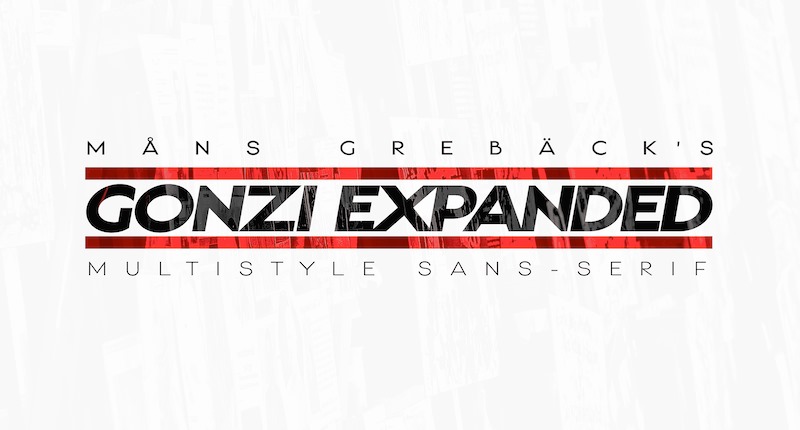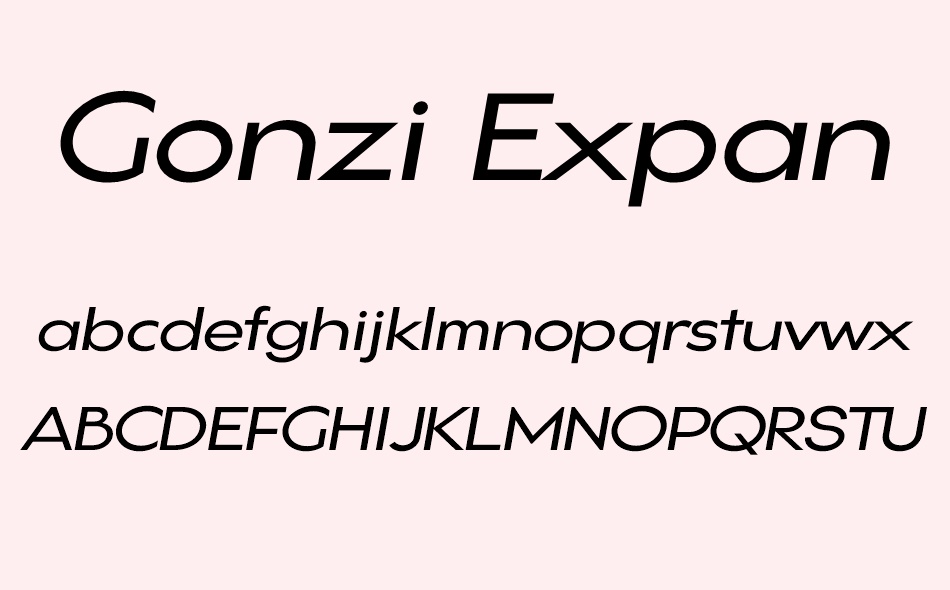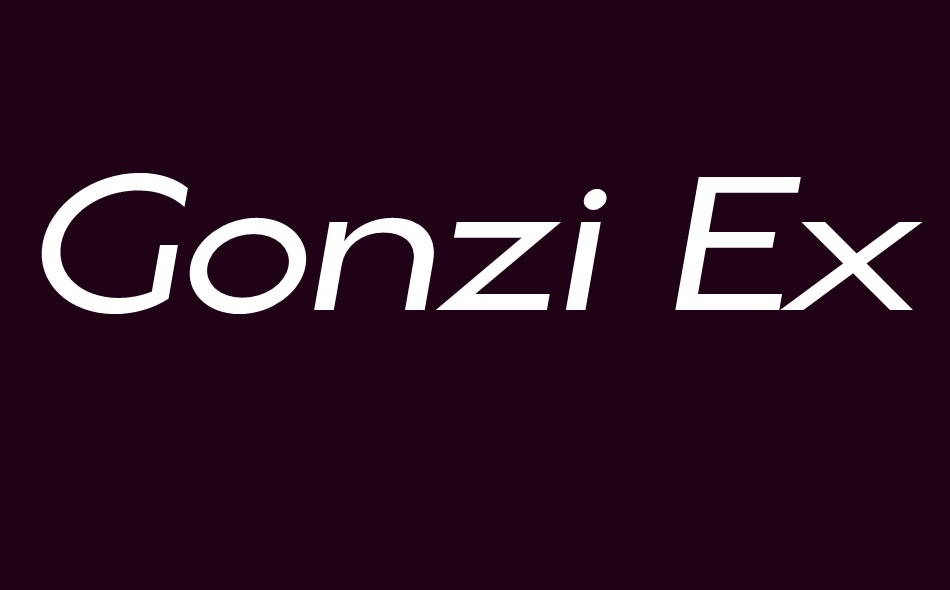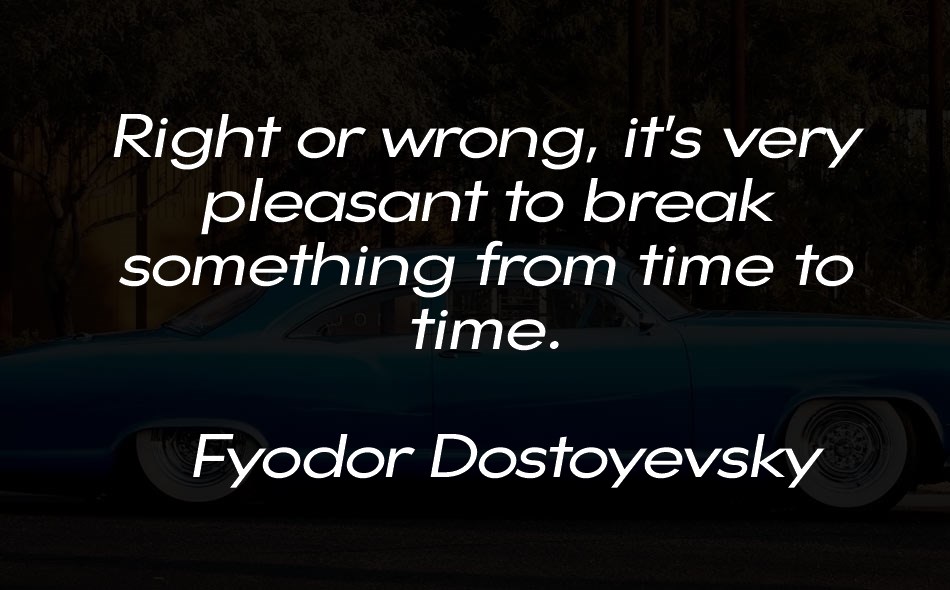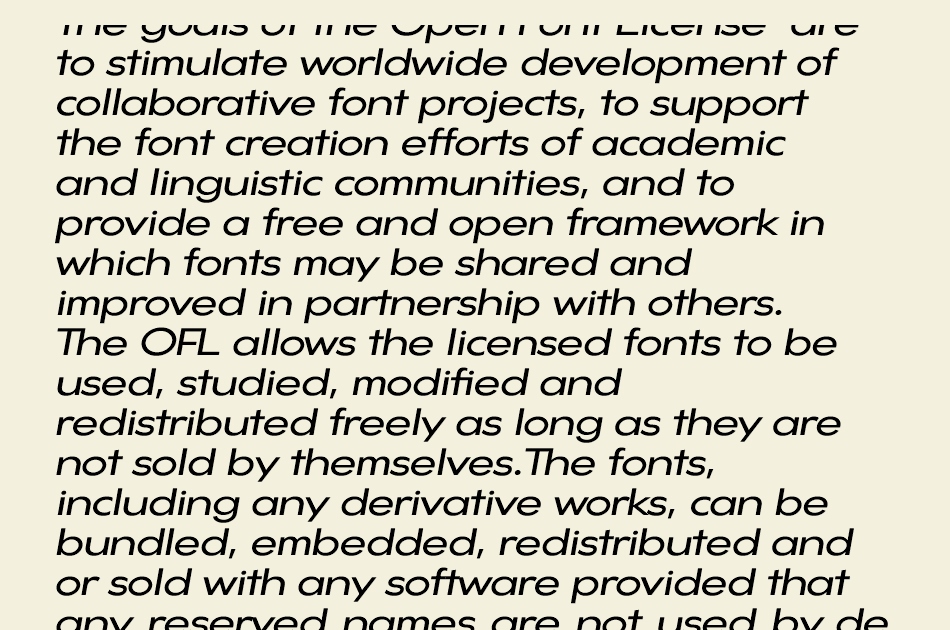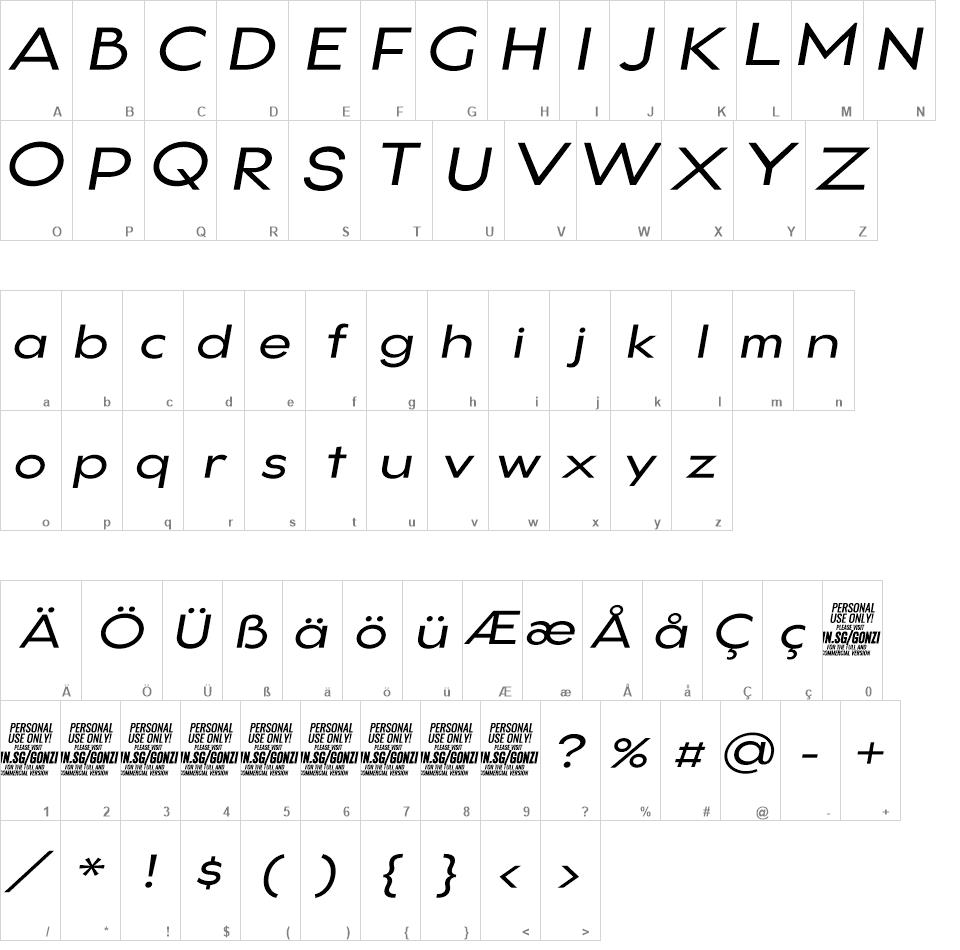
Gonzi Expanded font
Gonzi is a geometric sans-serif typeface in 30 styles.
Its circular lowercase letters and large, expressive capitals combine to create a modern, clean typesetting with a distinct personality; all the while keeping accessible and legible.
Gonzi consists of five weights, each one as narrow, medium and wide:
Thin, Light, Regular, Bold, Black
Condensed, Medium, Extended
Each one of font styles is also provided as Italic, totalling 30 high-quality styles.
The font is built with advanced OpenType functionality and has a guaranteed top-notch quality, containing stylistic and contextual alternates, ligatures and more features; all to give you full control and customizability.
It has extensive lingual support, covering all Latin-based languages, from North Europe to South Africa, from America to South-East Asia.
It contains all characters and symbols you'll ever need, including all punctuation and numbers.